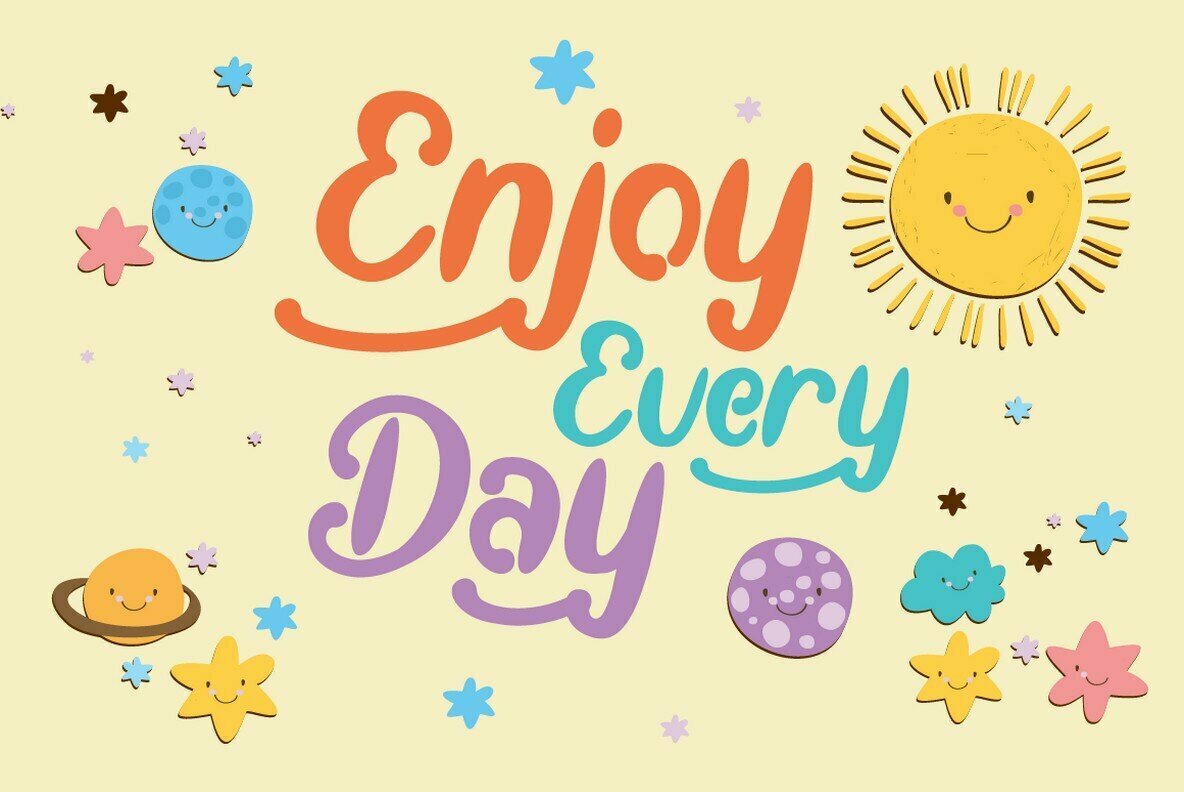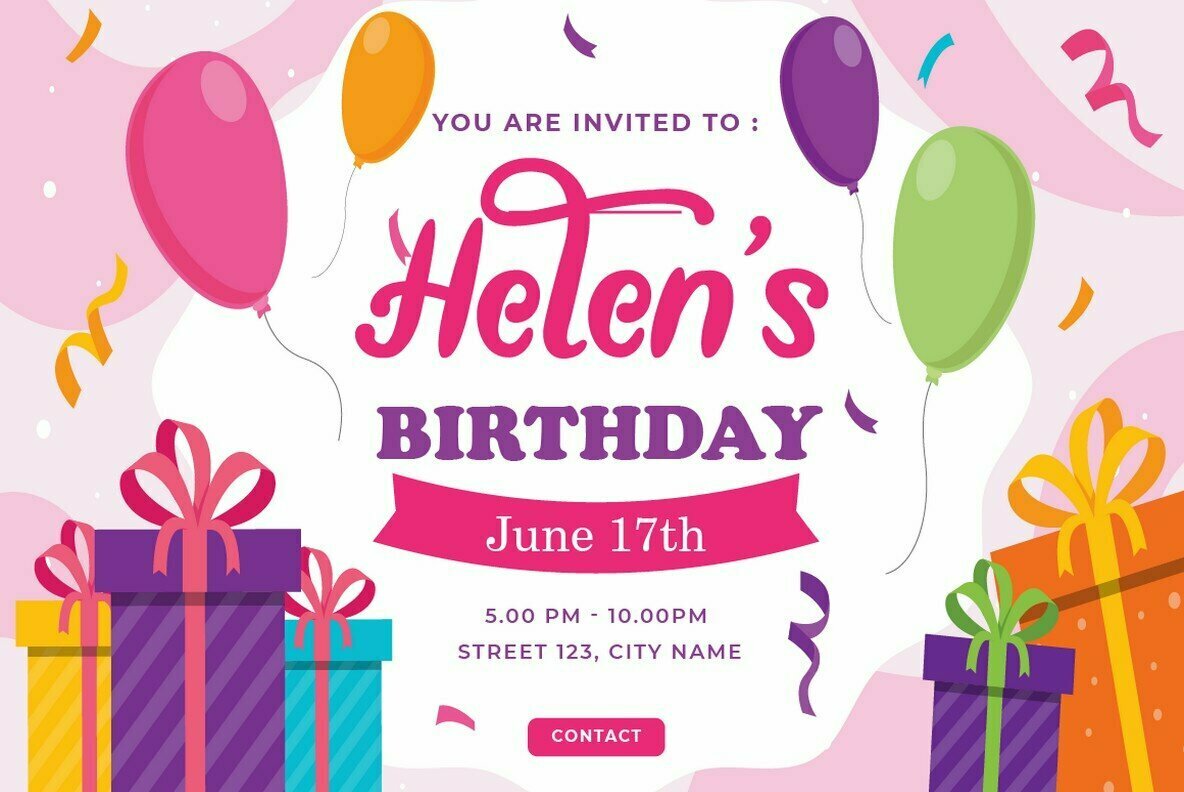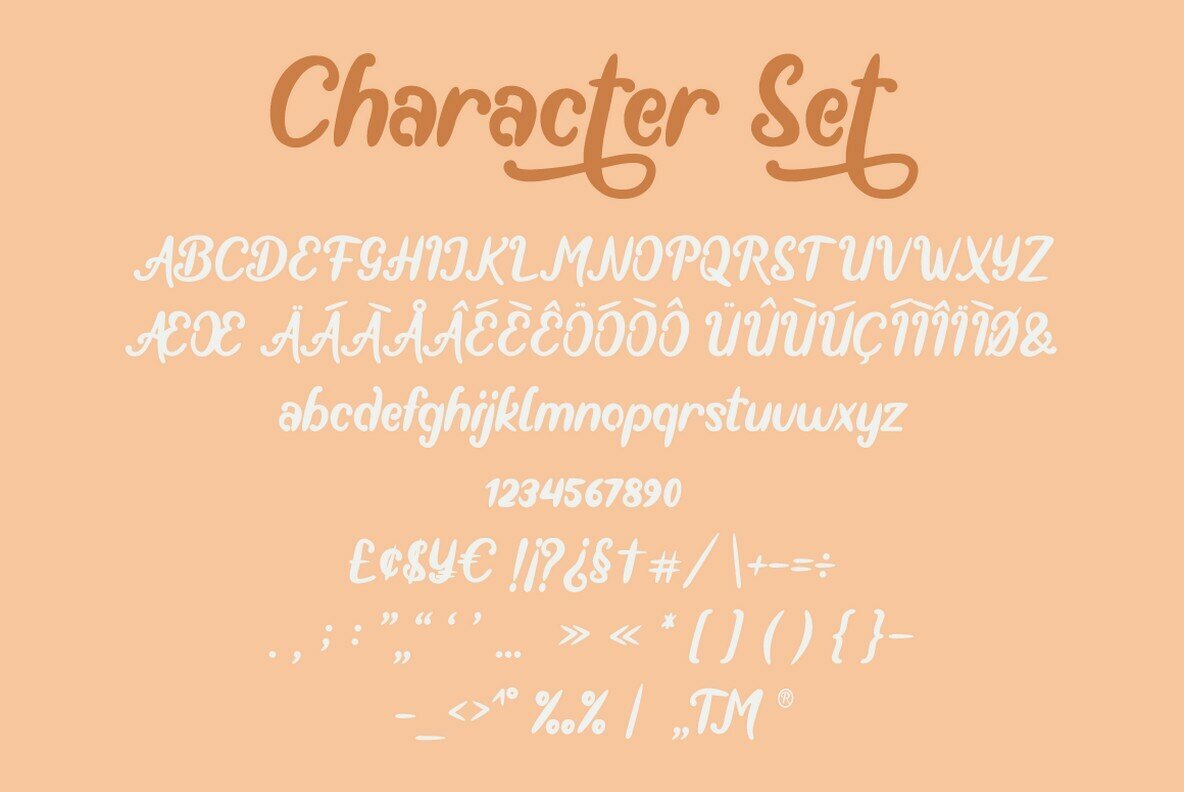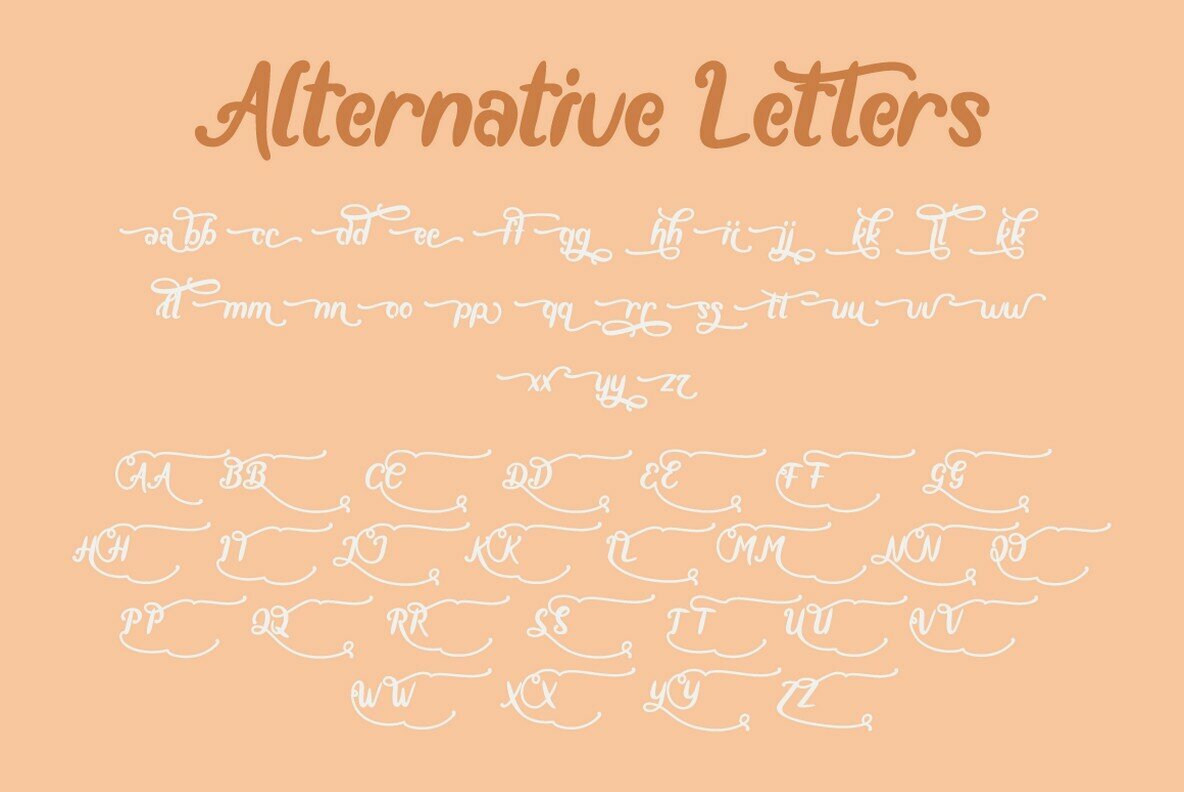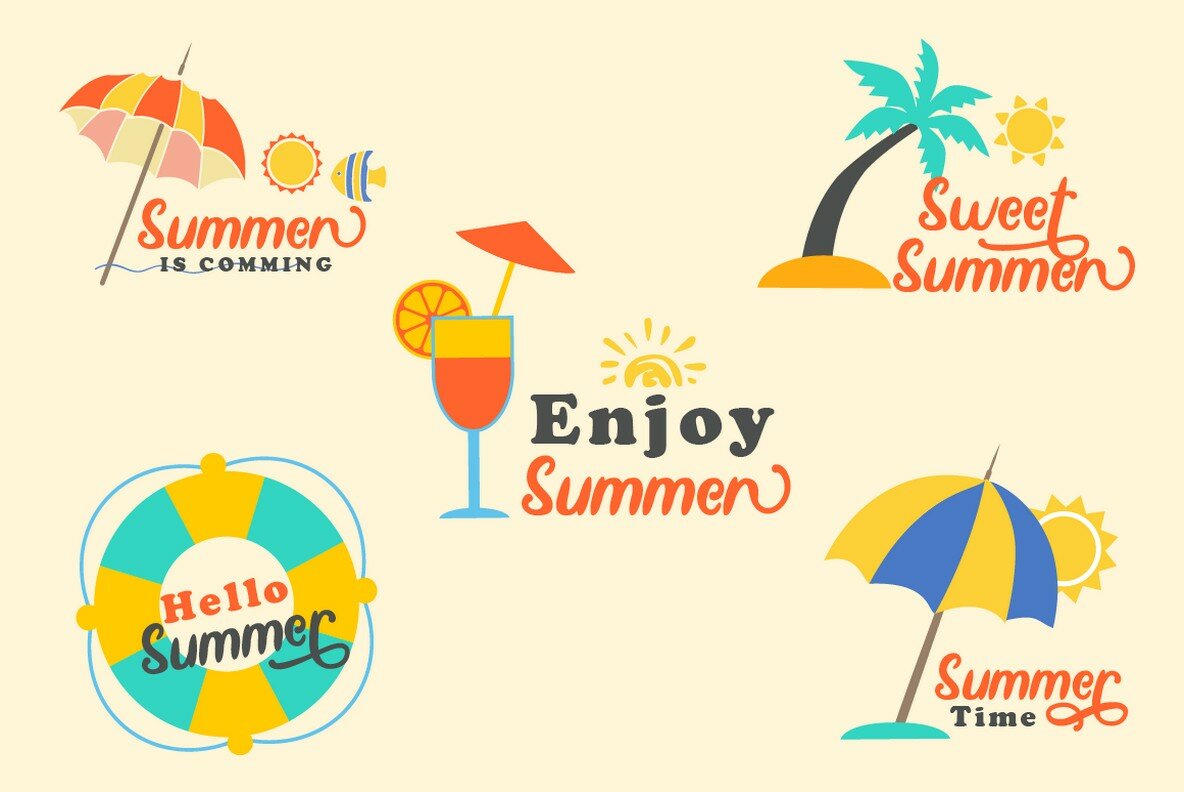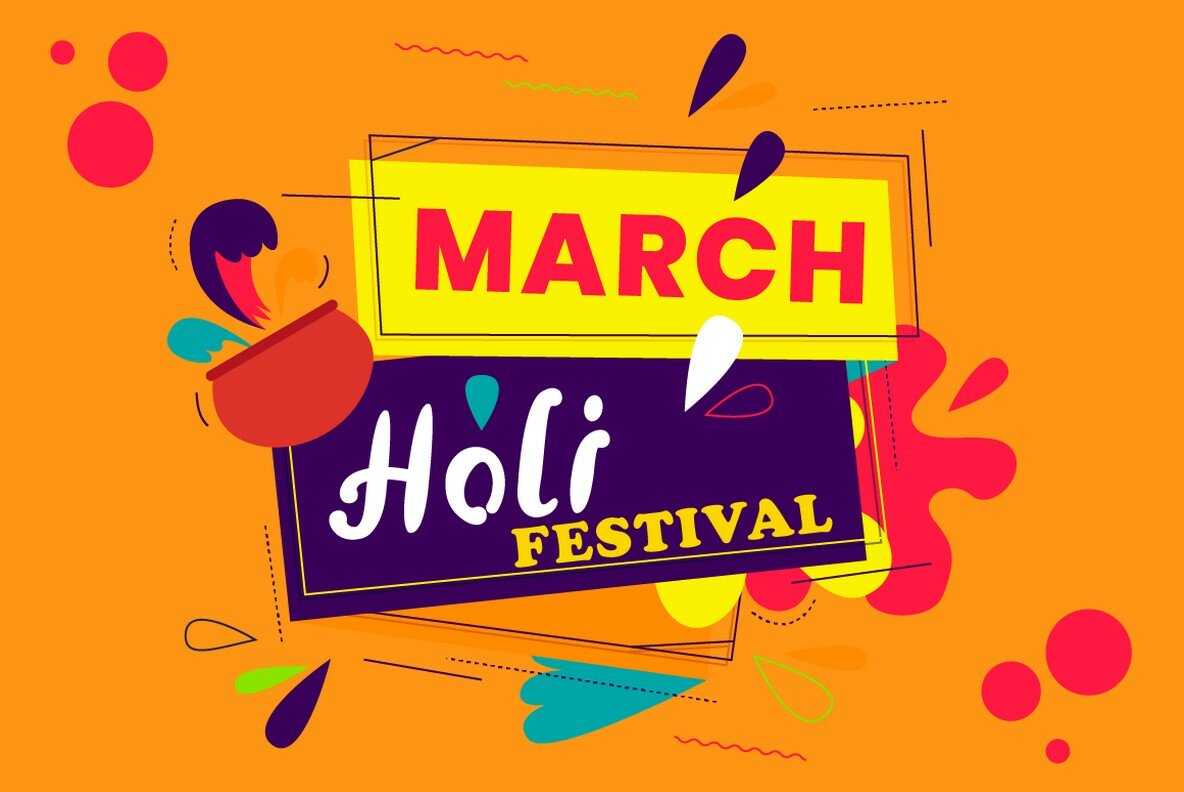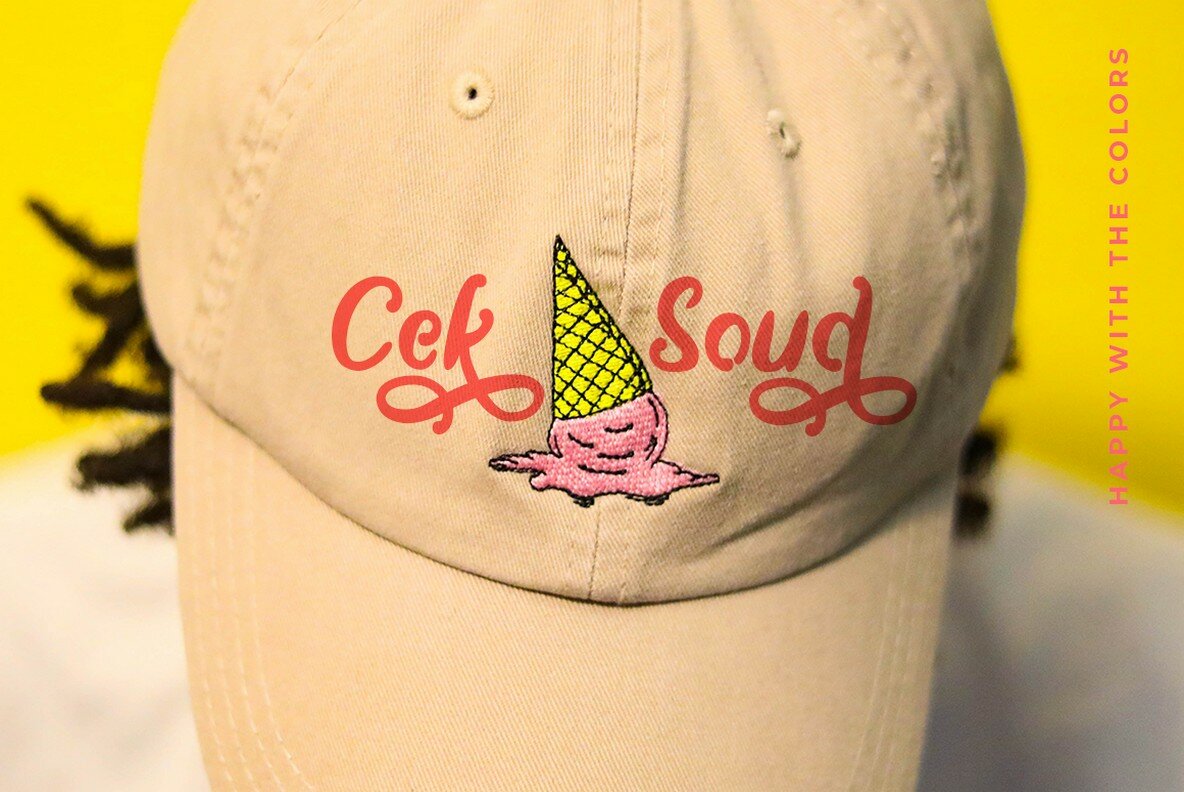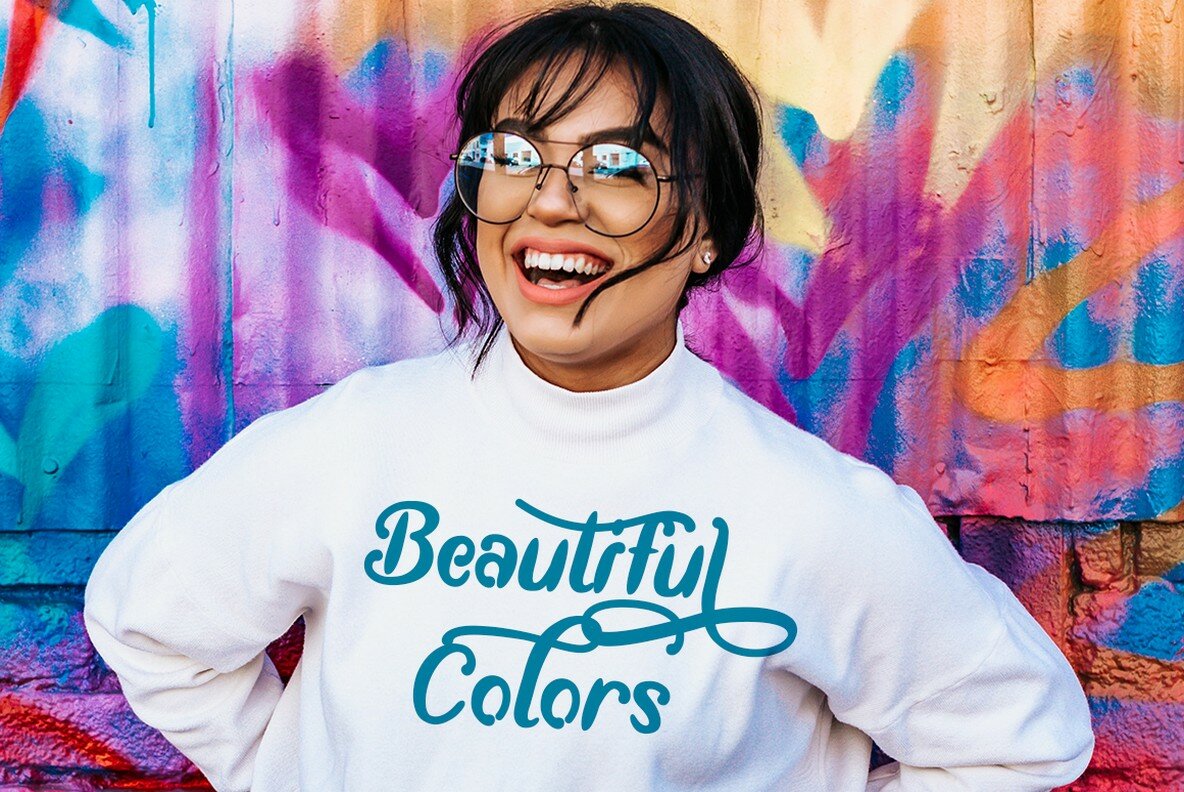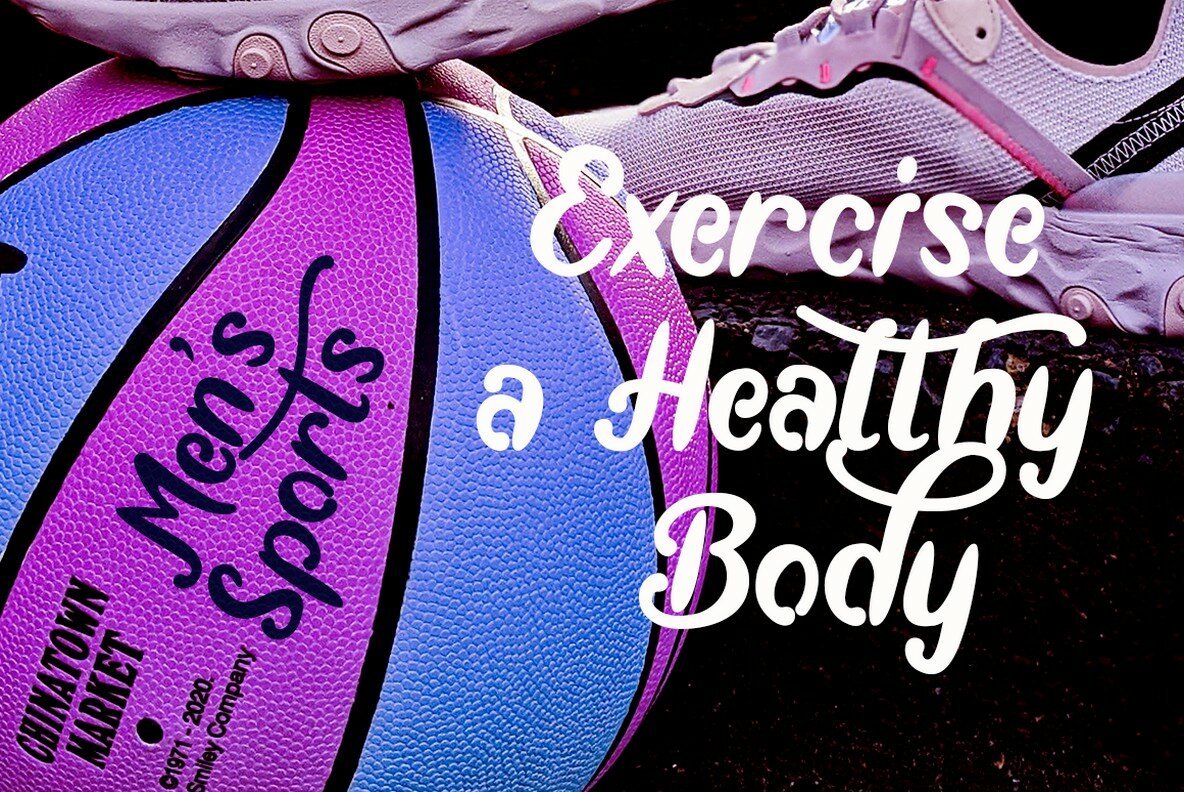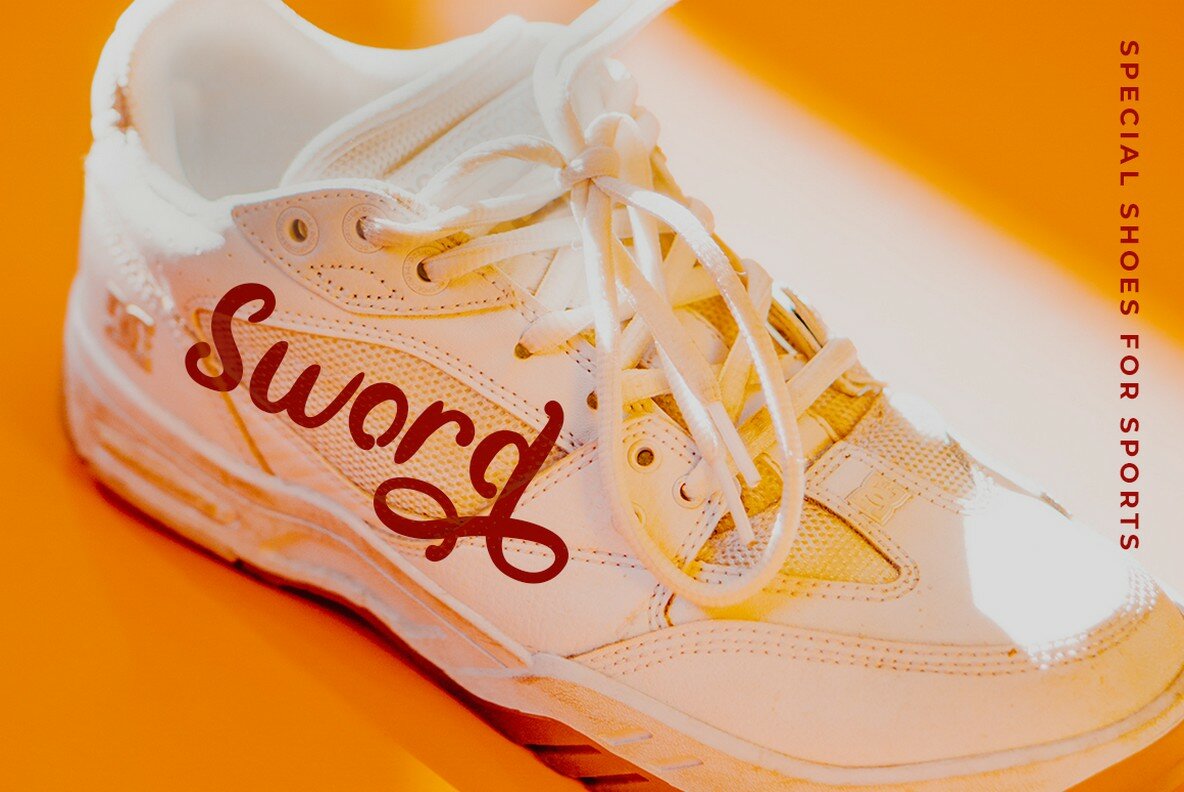
Absolute Joyful Font
Absolute Joyful
Infuse your design projects with the lively spirit of Absolute Joyful, a display font characterized by its bold characters and smooth corners. Designed to inject fun and happiness, this font excels in creating a playful atmosphere. Its whimsical nature makes it ideal for a variety of applications, including quotes, greeting cards, and children's books.Absolute Joyful: A Playful Display Font with Quirky Charm